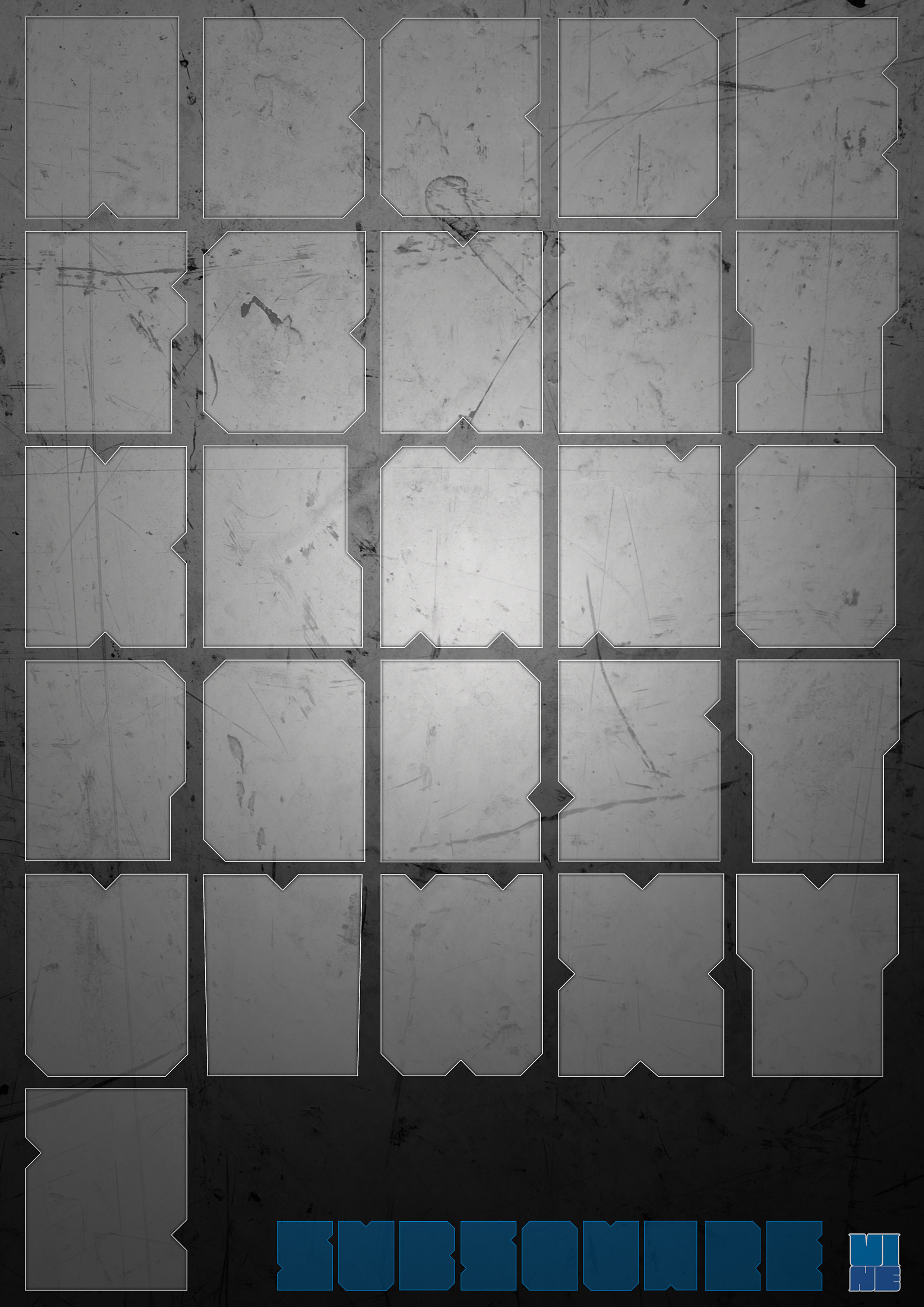
Heey! Good start for this is my first source created, and yes! her work has even seemed to think is very simple! is very fun to create a source that tests their knowledge of several. All this was set up starting at square one, thought it was when watching sponge Bob! haha, good use of it is free!Mac/Pc
( the next will be better! hehe
( >> comments and critique will be welcome << )
Ah... ela tΓ‘ com alguns probleminhas de kerning cara... Se tu pudesse arrumar...Sei que Γ© difΓcil... mas fica ai a dica ^^
Ficou bem legal, o W me lembra o sΓmbolo dos Autobots
! hahaha, verdade! lembra mesmo!
I love the fact that you displayed all the letters in qwerty form, that is awesome!
i have made a set close like this one name BALOK its mean square but not good as your
..that starting at square shape
i think the hard part is to make the letter "U,V and maybe the G"
On the letters U, V and G were the same, because I try to make the idea
all of them in a square base, they were sort of like
other letters, type O and G, i left the tip of the square G, the more I
which is very difficult to see that. The idea of the font is that it be fantasy, and manipulated to try get the art you want! hehehe
It was my first source, you will find some error in spacing, nothing
hard to get!
ahh i see okay, thanks, i've noticed the slight spacing error but to be honest, i know it's probably just my opinion but i think the nonuniformed spacing adds character to it